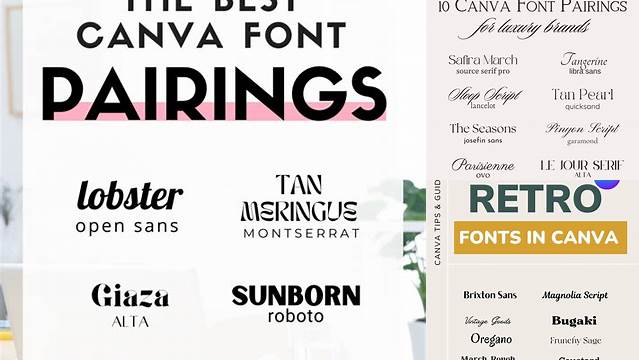
Canva Fonts & Color Combinations: A Design Masterclass
Hey design enthusiasts! Ever feel like your Canva creations are just… missing something? You've got the ideas, the images, but the final look isn't quite popping. Well, guys, a huge part of that magic often lies in two fundamental design elements: fonts and color combinations. Mastering these can take your projects from drab to fab, and luckily, Canva makes it surprisingly accessible. In this deep dive, we're going to explore how to effectively use different fonts and understand the power of color combinations within Canva to elevate your designs to the next level. Get ready to unleash your inner designer!
The Power of Font Pairings in Canva
When we talk about using different fonts in Canva, we're not just talking about picking something that looks pretty. It's all about creating visual hierarchy and conveying a specific mood or message. Think about it – the font you choose for your main heading sets the tone for the entire piece. Is it bold and authoritative, or light and airy? Then, the font you use for your body text needs to be readable and complement your heading without competing with it. This is where font pairing comes in. A classic and safe bet is to pair a serif font (those with little feet, like Times New Roman) with a sans-serif font (those without the feet, like Arial). This contrast creates visual interest and helps readers distinguish between different pieces of information. For instance, a strong, bold sans-serif for your title followed by a more elegant serif for your descriptive text can be incredibly effective. Canva offers a massive library of fonts, both free and Pro. Don't be afraid to experiment! Click on the text box, then the font dropdown, and just start browsing. Look for fonts that have different personalities but share some underlying characteristics, like stroke weight or x-height. Sometimes, pairing two sans-serif fonts can work, but you need to ensure they have distinct enough styles – maybe one is very geometric and the other more humanist. The key is balance. You don't want your design to look cluttered or like a ransom note with too many different typefaces. Stick to two, maybe three, complementary fonts for a professional and cohesive look. Remember, guys, the goal is readability and aesthetic appeal, and smart font pairing is your secret weapon in Canva.
Exploring Serif Font Charm in Canva
Let's get real, guys, serif fonts have a certain je ne sais quoi. They’re classic, they’re elegant, and they bring a touch of sophistication to any design in Canva. Think of those little decorative strokes, the serifs themselves – they guide the eye along the line of text, which can be fantastic for longer blocks of copy, making them super readable. When you're working in Canva, diving into the serif font selection is like stepping into a library filled with history and tradition. We're talking about fonts like Garamond, Georgia, or Playfair Display. These are your go-to choices when you want to convey a sense of trust, authority, or a more formal, literary feel. Imagine a wedding invitation with a beautiful script header paired with a classic serif for the details – pure elegance! Or a blog post about historical events using a serif font for the main title to immediately set that tone. The trick with serif fonts, especially in digital design, is to ensure they are legible at smaller sizes. Some very intricate serifs can become a bit muddy on screen. That's why it's often a good idea to pair a more decorative or bolder serif for headings with a simpler, clean sans-serif for your body text. However, if you’re designing something like a poster or a book cover where the text is larger, you have more freedom to play with the stylistic nuances of serif fonts. Canva’s font menu makes it easy to preview how these look. Just click on your text, hit the font dropdown, and start typing the name or browsing the categories. You can even filter by “serif.” When you find one you like, try applying it to your headlines. See how it impacts the overall mood. For longer passages, opt for a serif that has clear, open letterforms. Don't be afraid to test out different weights too – a light serif can feel delicate, while a bold serif adds significant presence. Understanding the personality of each serif font will help you make deliberate choices that enhance your message, guys, making your Canva designs truly shine with timeless appeal.
Sans-Serif Simplicity and Readability
Alright, let's switch gears and talk about the clean, crisp world of sans-serif fonts in Canva. If serif fonts are the elegant old-world charm, sans-serifs are the modern, no-nonsense workhorses. The lack of those little feet, the serifs, gives them a clean, minimalist vibe that’s incredibly popular in contemporary design. Think about brands like Google, Apple, or Netflix – they all heavily rely on sans-serifs for their clean, approachable feel. In Canva, you'll find a ton of these, from the super geometric like Montserrat and Poppins, to the more humanist ones like Open Sans and Lato. The real superpower of sans-serifs lies in their readability, especially on screens and at smaller sizes. This makes them ideal for body text, website copy, social media captions, and pretty much any situation where clarity is king. When you're using Canva, pairing sans-serif fonts can be super effective if you play with different weights and styles. For example, you could use a bold, heavy sans-serif for your main title and then a lighter weight of the same font family for your subheadings or body text. This creates a harmonious look because they belong to the same family but still have enough contrast to distinguish information. Alternatively, you can pair two different sans-serifs, but you need to be careful. Make sure they have distinct enough personalities. A geometric sans-serif like Futura might pair well with a more rounded, humanist sans-serif like Quicksand, but you have to check the visual balance. The key is to avoid a clash. Look for fonts that have similar x-heights (the height of lowercase letters like 'x') or similar overall proportions. Canva's interface makes this easy – just select your text, go to the font menu, and start exploring. Filter by “sans-serif” to see all your options. Don’t just stick to the most common ones; Canva has some hidden gems. Experiment with different weights – thin, light, regular, medium, bold, black – to create emphasis and hierarchy within your design. Sans-serifs are your best friend for modern, clean, and highly readable designs, guys, making them an essential tool in your Canva arsenal.
Script and Display Font Flair
Now, let's talk about the fonts that really bring the pizzazz to your Canva designs: script and display fonts! These are your decorative powerhouses, the ones you use sparingly for maximum impact. Script fonts, as the name suggests, mimic handwriting or calligraphy. They can range from elegant and flowing, like a formal invitation script, to playful and casual, like a handwritten note. Think of fonts like Great Vibes or Dancing Script in Canva. They’re fantastic for adding a personal touch, a sense of romance, or a touch of luxury. However, never use script fonts for body text, guys. They are notoriously difficult to read in longer passages. They are best reserved for short, impactful headings, quotes, or decorative elements. On the other hand, display fonts are a broad category of typefaces designed for large sizes and short bursts of text. These can be really unique and artistic – think chunky, retro fonts, quirky hand-drawn styles, or bold, attention-grabbing headlines. Fonts like Bebas Neue (which is technically a sans-serif but often used as a display font) or Anton fall into this category. They’re designed to make a statement. The golden rule with both script and display fonts is moderation. They are accent pieces. Use them for your main titles, a key call-to-action, or a small decorative element. A common mistake is to overuse them, which can make your design look chaotic and unprofessional. A great strategy in Canva is to pair a distinctive script or display font for your headline with a clean, readable sans-serif or serif for all the accompanying text. This contrast ensures your main message stands out while the supporting information remains easy to digest. When browsing in Canva, look for these fonts in the “Display” or “Script” categories, or simply search for keywords related to the style you want. Play around with them on your titles, but always follow up with a simple font for the rest. Remember, guys, these fonts are for making a splash, not for telling the whole story.
Creating Contrast with Font Styles
Contrasting font styles is absolutely crucial when you’re designing in Canva, and it’s how you make sure different parts of your text command attention appropriately. Think of it like a conversation: you have the main speaker (your headline) and the supporting voices (your body text). They need to sound different, but harmonious, to keep the listener engaged. The most effective way to create contrast is by pairing fonts from different categories, like a serif with a sans-serif, or a bold, decorative font with a simple, legible one. In Canva, this means selecting two (or at most three) fonts that have distinct visual characteristics. For example, you might choose a strong, geometric sans-serif like Impact for your main title to grab immediate attention. Then, for your supporting text, you’d opt for a softer, more readable sans-serif like Open Sans in a regular or light weight. This creates a clear hierarchy: the title is dominant, and the body text is subservient but easily consumed. Another powerful contrast is achieved through weight and style. Even within the same font family, using a bold weight for a subheading and a regular weight for the paragraph text provides contrast. Or, consider pairing a clean sans-serif with a playful script font for a short, eye-catching phrase. Canva makes previewing these contrasts super easy. Just type out your text, select it, and cycle through the font options. You can even have multiple text boxes open to compare pairings side-by-side. The goal is to create visual interest without sacrificing readability. You don't want a jarring difference that makes the text hard to follow. Look for pairings where one font has a strong personality and the other is more neutral, or where there's a clear difference in stroke width or letterform structure. Remember, guys, contrast isn't just about making things look different; it's about guiding the reader's eye and making your design intuitive and professional. Mastering this contrast in Canva is key to impactful typography.
The Psychology of Color in Design
Guys, let's talk about the emotional impact of colors. Before you even pick a shade in Canva, it’s super important to understand that colors aren't just pretty; they have power. They trigger emotions, associations, and even physiological responses. Knowing this is your secret weapon for making your designs connect on a deeper level. For instance, blue is often associated with trust, stability, and calmness. Think of banks or tech companies – they frequently use blue to project reliability. Red, on the other hand, is passionate, energetic, and can even signify urgency or danger. It’s great for calls to action or highlighting something important, but use it wisely! Yellow is cheerful, optimistic, and attention-grabbing. It can be excellent for sparking creativity or conveying happiness, but too much can be overwhelming. Green is strongly linked to nature, growth, and health. It’s a calming color that can be very soothing. Purple often evokes luxury, creativity, and royalty. It’s a bit more mysterious and sophisticated. Orange is friendly, enthusiastic, and vibrant – a great mix of red’s energy and yellow’s happiness. Black can represent power, elegance, and sophistication, often used for a premium feel. White signifies purity, simplicity, and cleanliness. These psychological associations aren't rigid rules, but rather general tendencies. When you're designing in Canva, think about the message you want to send. If you're creating a social media post for a spa, you'll likely lean towards calming blues, greens, or soft purples. If it's for a high-energy fitness event, reds, oranges, and bright yellows might be more appropriate. Consider your target audience too – what colors do they associate with positive feelings or the message you're trying to convey? Canva's color picker is your playground here. You can select colors directly from your image, use hex codes if you have a specific brand palette, or explore the suggested palettes. Understanding the psychology behind each hue will help you make deliberate choices that enhance the emotional impact of your Canva designs, guys, ensuring your message hits home.
Understanding the Color Wheel
Okay, so the color wheel might sound a bit like art class, but trust me, guys, it’s the foundational tool for understanding how colors work together, and Canva totally embraces it! The color wheel is basically a circular chart showing relationships between primary (red, yellow, blue), secondary (orange, green, violet – made by mixing primaries), and tertiary colors (mixtures of primary and secondary). Knowing these relationships helps you create harmonious and visually appealing color schemes. The most common types of color harmonies you’ll want to leverage in Canva are: Complementary Colors: These are colors directly opposite each other on the wheel (like blue and orange, or red and green). They create high contrast and really make each other pop! Use them carefully, perhaps for a main element and its accent, to create excitement. Analogous Colors: These are colors that sit next to each other on the wheel (like blue, blue-green, and green). They create a sense of harmony and cohesion because they share a common base color. These are great for backgrounds or creating a serene mood. Triadic Colors: These are three colors evenly spaced around the wheel (like red, yellow, and blue). They offer strong contrast while remaining balanced. It’s a vibrant scheme, so again, use with intention. Monochromatic Colors: This involves using different shades, tints, and tones of a single color. It’s incredibly sophisticated and creates a very unified look. In Canva, when you click on a color element (like a shape or text background), the color panel pops up. You can pick from default palettes, use the color picker tool to grab a color from an uploaded image, or enter specific HEX codes. Canva often suggests color palettes based on the image you’re using, which is a fantastic shortcut! You can also explore the “Styles” tab, which offers pre-designed color palettes that you can apply with a single click. Understanding the basic color wheel relationships – complementary, analogous, triadic, monochromatic – gives you the power to intentionally choose colors in Canva that not only look good but also communicate the right message and evoke the desired feelings. It's your roadmap to awesome color combinations, guys!
Popular Color Combination Strategies in Canva
Let’s talk strategy, guys! When you're in Canva, staring at that color palette, how do you actually pick combinations that work? It’s not just about random selection; there are proven strategies that can make your designs sing. One of the most effective is using split-complementary colors. Unlike complementary colors (which are directly opposite), split-complementary involves choosing a base color and then using the two colors adjacent to its direct complement. For example, if your base is blue, its complement is orange. The split-complementary colors would be yellow-orange and red-orange. This creates a high-contrast, vibrant scheme, but it's often easier to manage than pure complementary colors because the tension is slightly reduced. Another fantastic strategy is tetradic (or double complementary). This uses two pairs of complementary colors. It’s the richest, but also the trickiest to balance. Think of a rectangle on the color wheel – the four colors it hits are your tetradic set. You’ll want to choose one dominant color and let the others be accents. In Canva, you can easily explore these by using the color picker and referring to the color wheel concepts we just discussed. Many designers also love the **